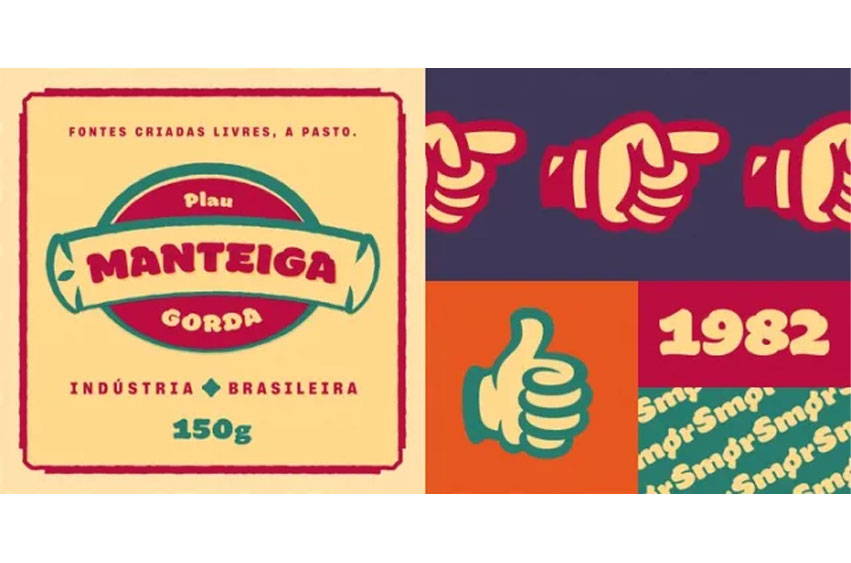
Manteiga Font
Manteiga Font Julia Child once said: the secret to great french cooking is butter, butter.
Thus, we present to you Manteiga – butter in Portuguese! – a typeface for heart-melting, word-spreading goodness.
The idea we had was to play with brush lettering – a style we love – and go as far as we can with the shapes of the letters while finding balance between positive and negative space